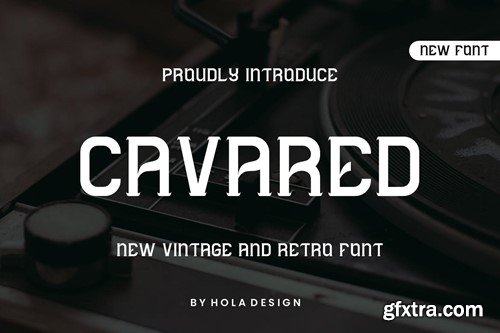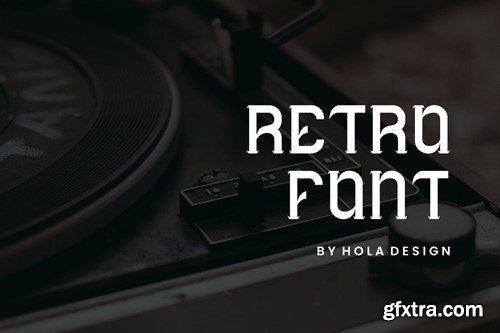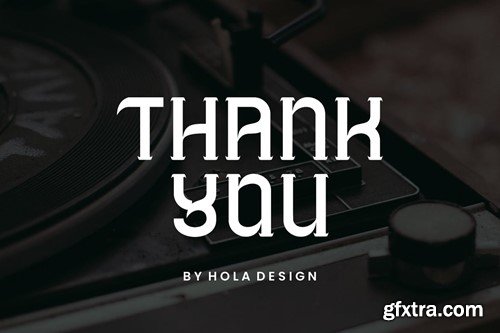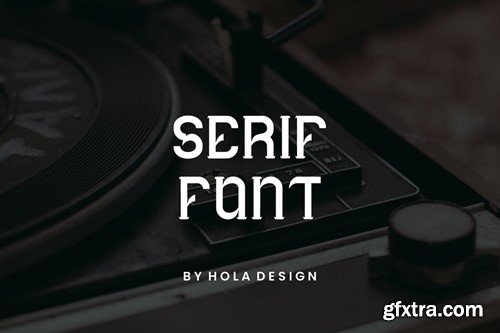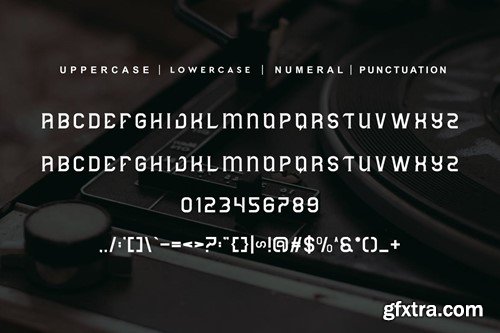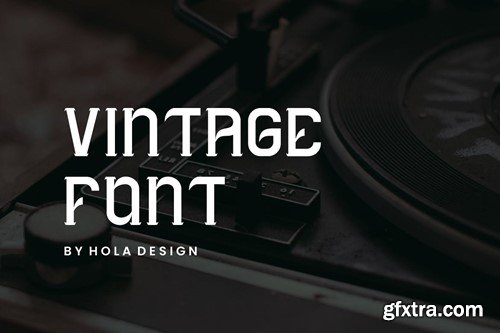
Cavared - 历史复古字体 YCL3FAS
Cavared - Vintage & Retro Font YCL3FAS
Cavared - Vintage & Retro Font
Cavared - Vintage & Retro Font Font is unique . Ready to use for your design like labeling, movie sceen, poster, movie title, gigs, album covers, logos, and much more.